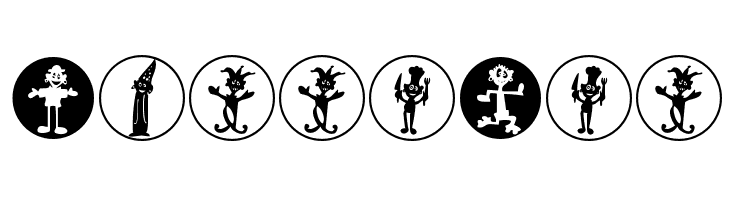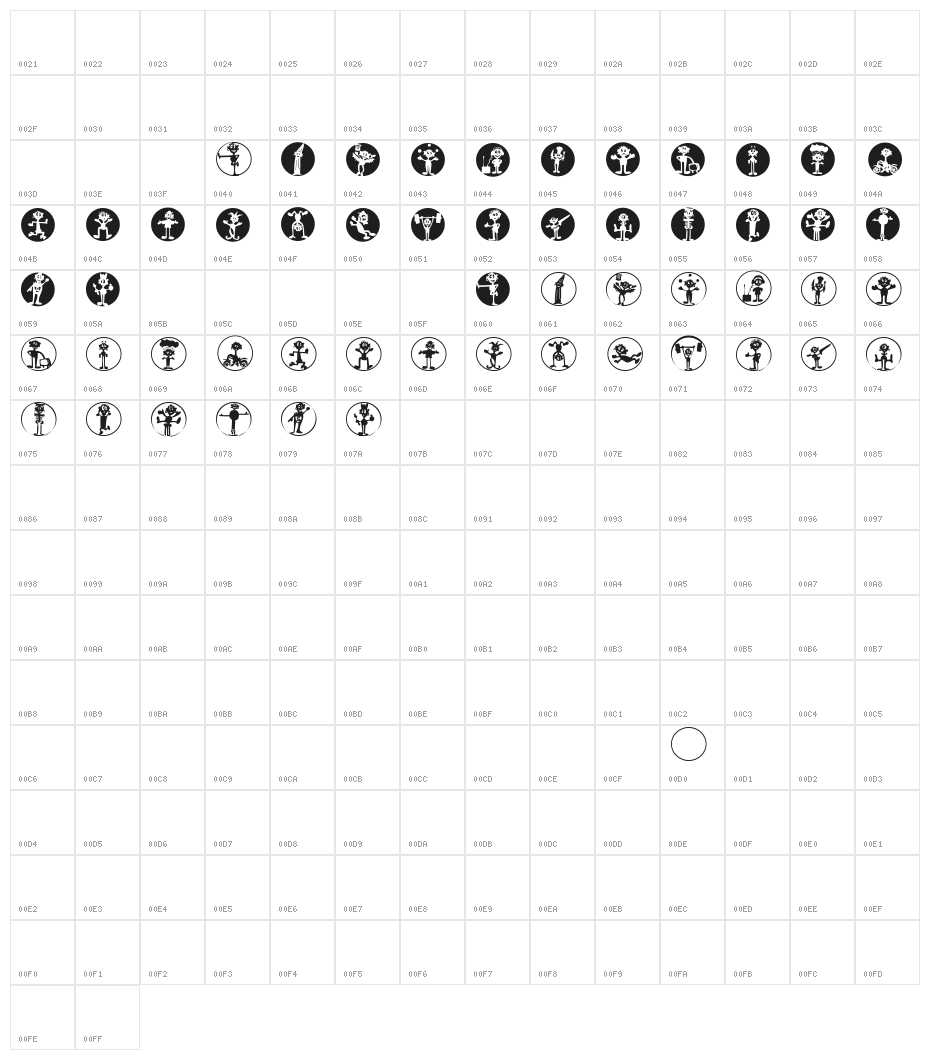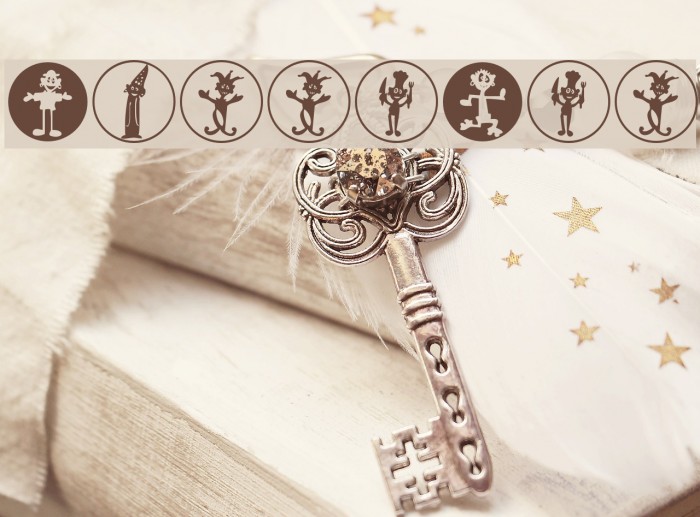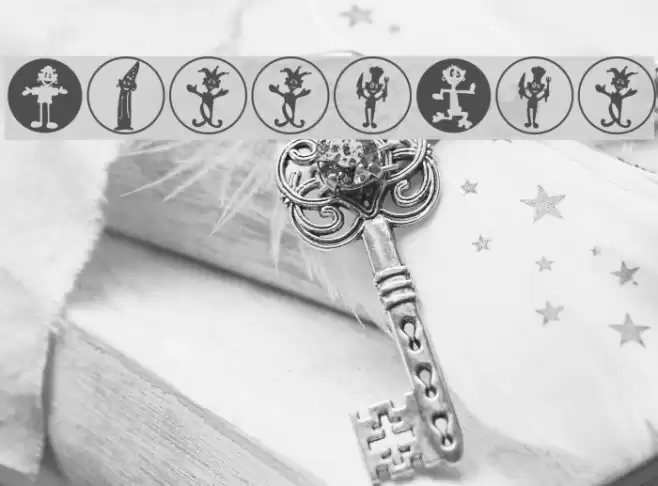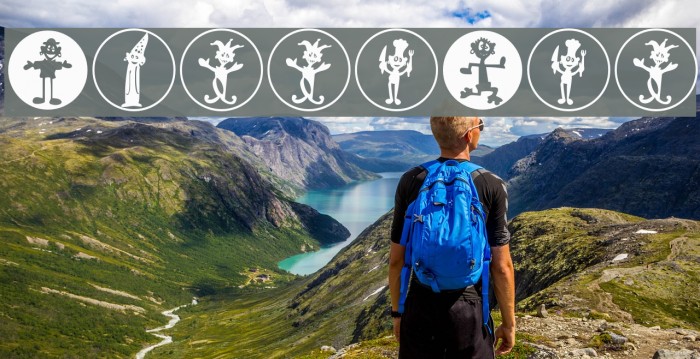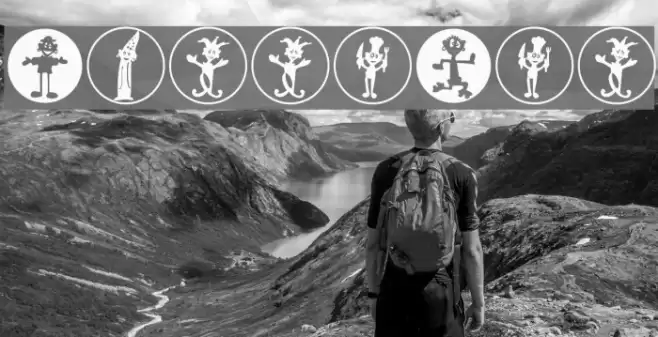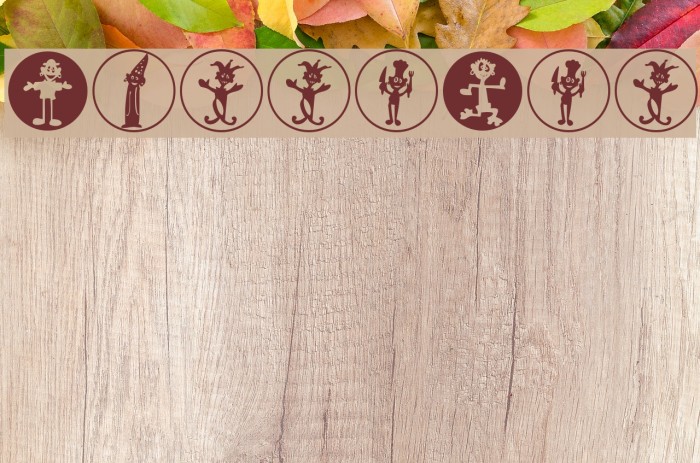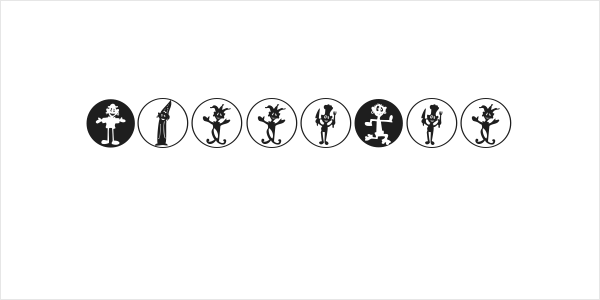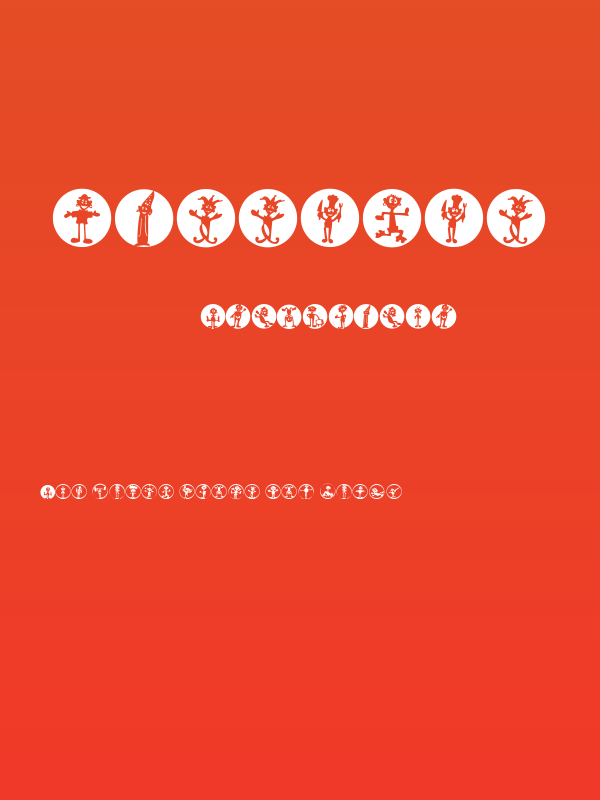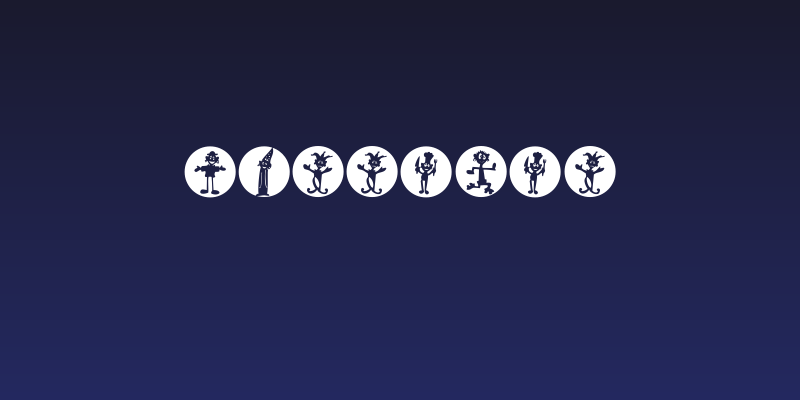
ManneKen Font
ManneKen Description
This is a playful and whimsical decorative font where each character is represented by a unique cartoon figure. The figures are enclosed in circular frames, each depicting a different character with distinct features and accessories, adding a lively and humorous touch. The style is highly illustrative, making it more of an art piece than a traditional font. The characters are bold and expressive, with a consistent circular boundary that unifies the set. This font is ideal for projects that require a fun and engaging visual element, such as children's books, playful branding, or creative posters.
| Use Case | Logos, Posters, Creative projects |
| Proposed Projects | Children's books, playful branding, creative posters, educational materials. |